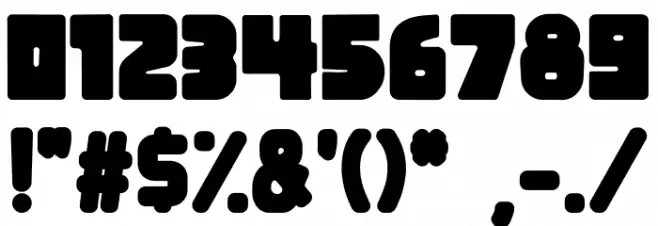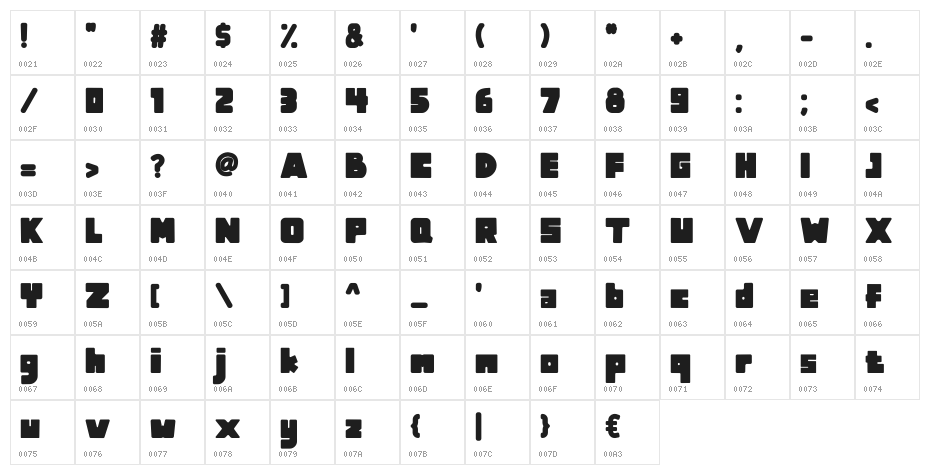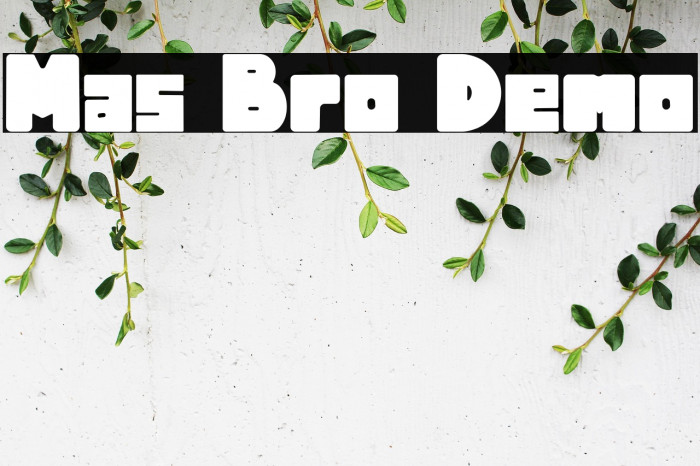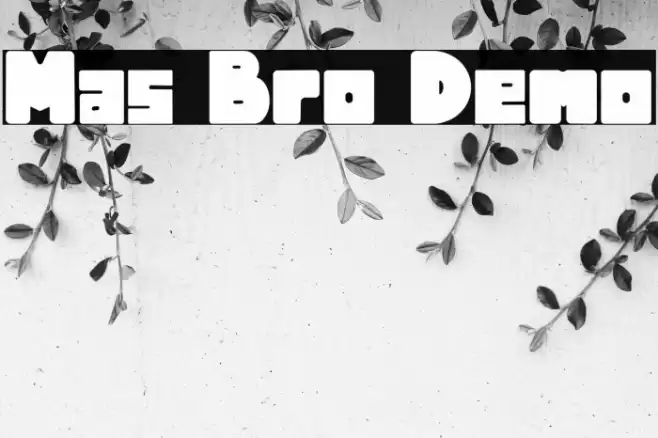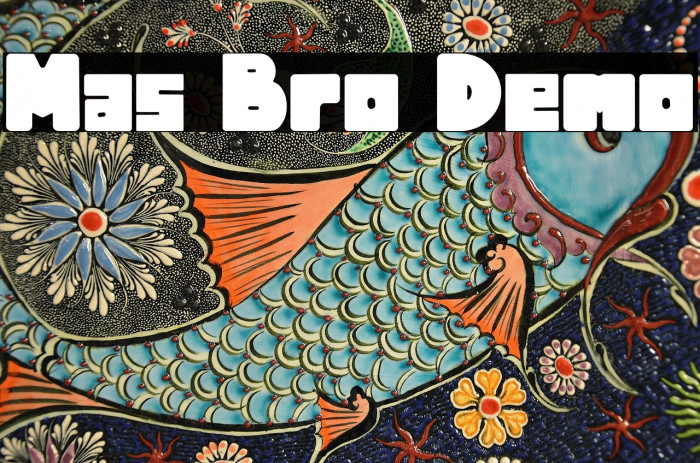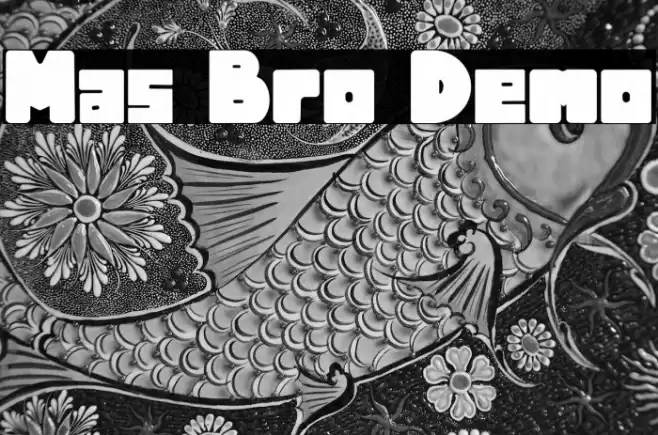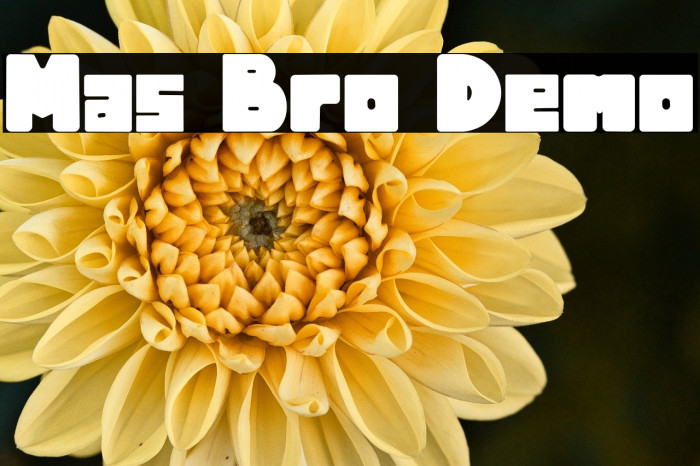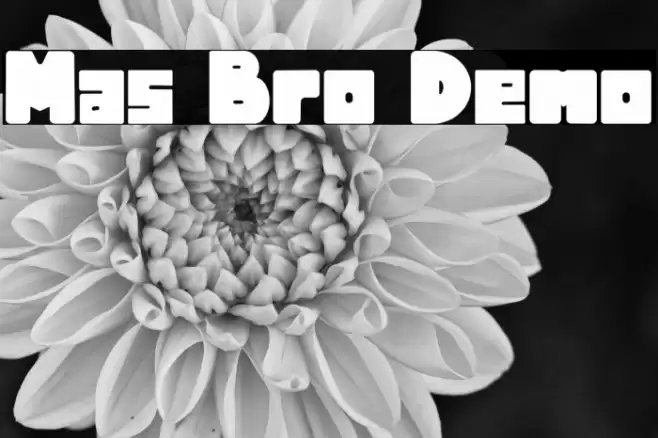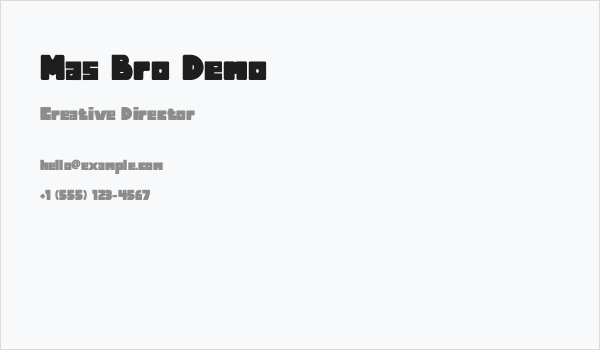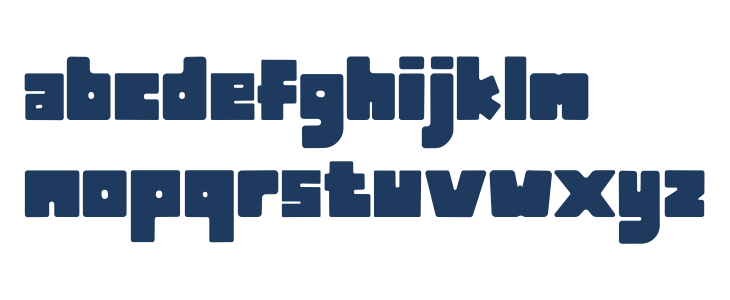
Mas Bro Demo Font
Mas Bro Demo Description
This bold and impactful font features a chunky, geometric design with strong, solid lines and a playful yet assertive presence. The characters are uniformly thick, creating a cohesive and powerful visual statement. The uppercase and lowercase letters maintain a consistent weight, contributing to the font's robust appearance. The numbers and special characters are equally bold, ensuring a harmonious look across all text elements. The font's design is reminiscent of retro styles, yet it maintains a modern edge, making it versatile for various creative applications.
| Proposed Projects | Ideal for posters, logos, headlines, and branding materials that require a strong visual impact. |